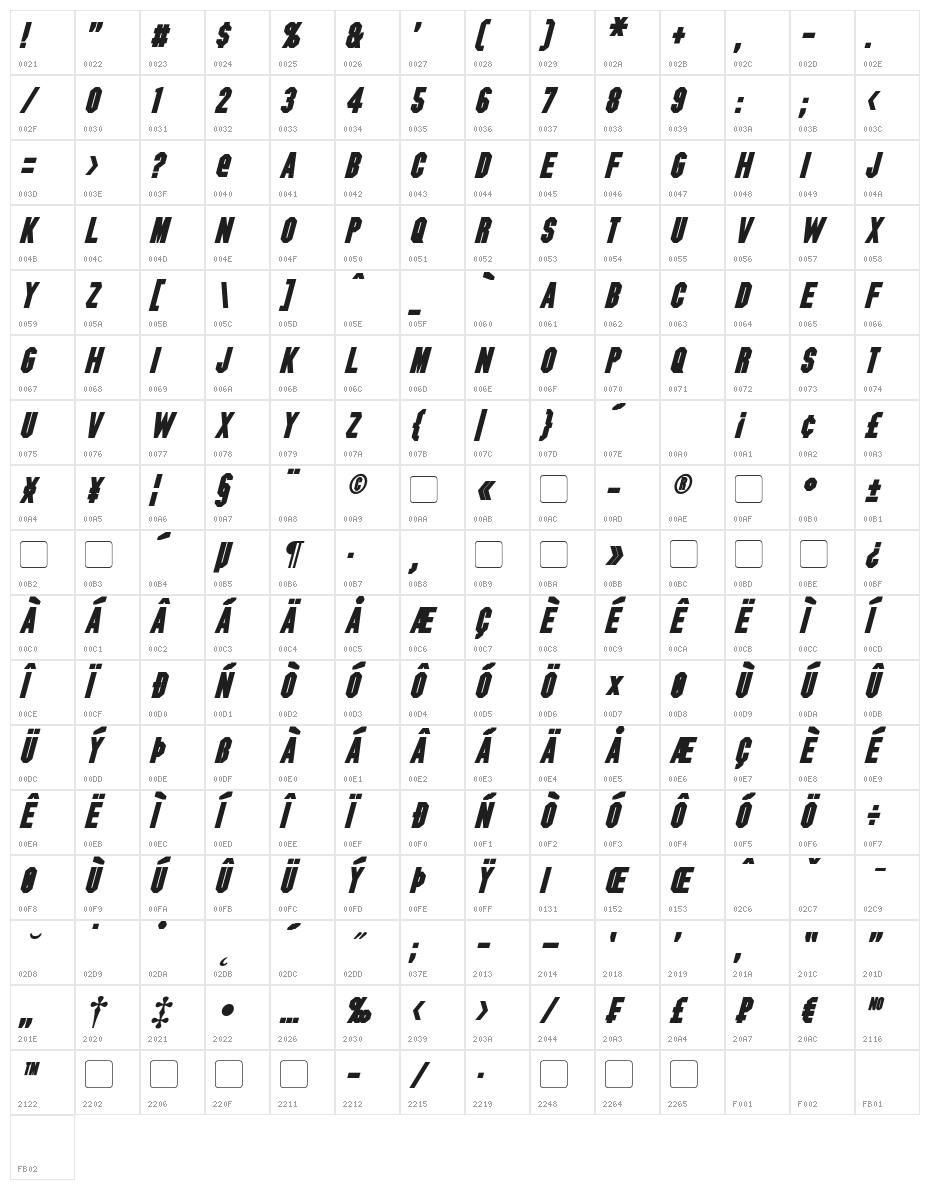
Blitzwing Bold Italic Font
Blitzwing Bold Italic Description
This font features a bold and italicized style with a strong, impactful presence. The characters are sharply angled, giving them a dynamic and aggressive look. The uppercase letters are particularly striking, with a consistent slant that enhances their boldness. The numbers and special characters maintain this angular style, ensuring uniformity across the font. The overall design is modern and assertive, making it suitable for projects that require a strong visual impact. The spacing between characters is tight, which contributes to its compact and powerful appearance.
| Proposed Projects | Ideal for sports branding, action movie posters, video game titles, and dynamic advertising campaigns. |